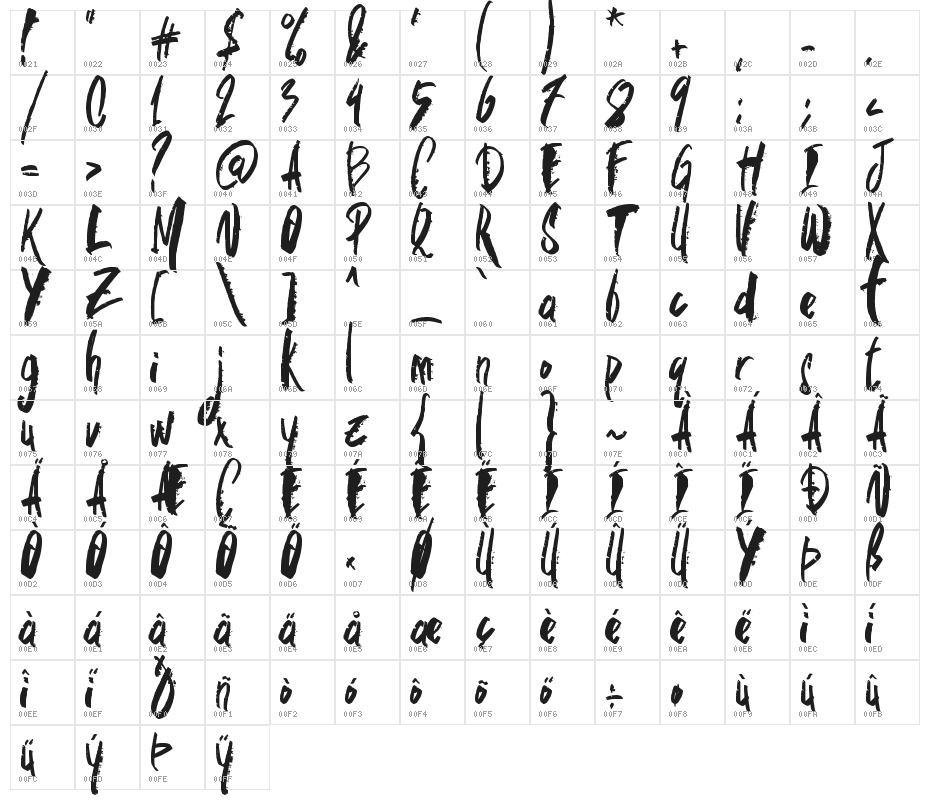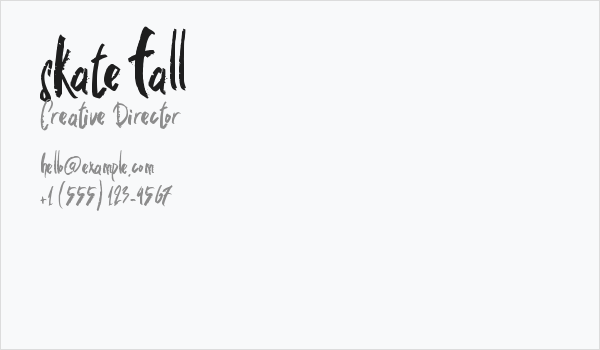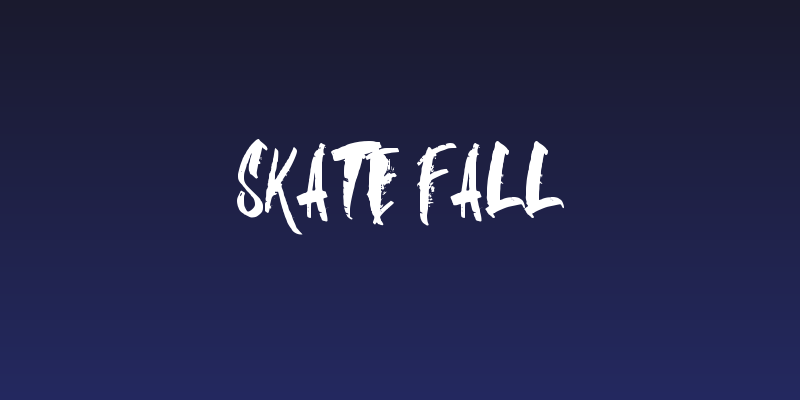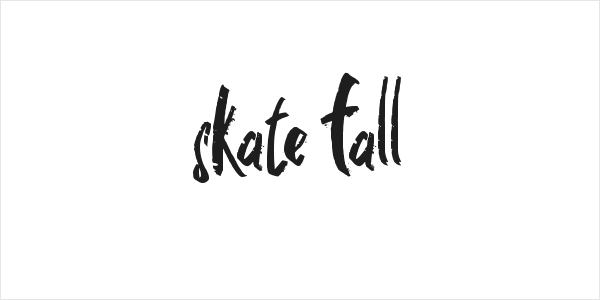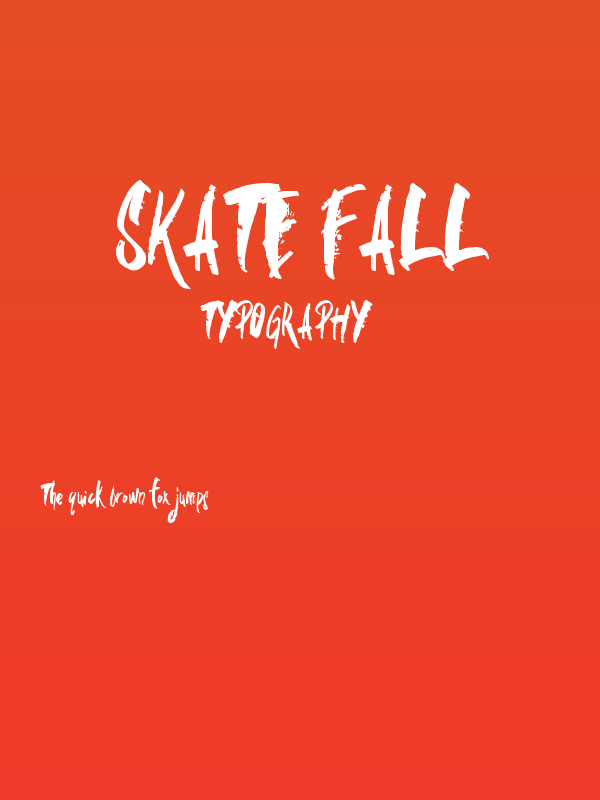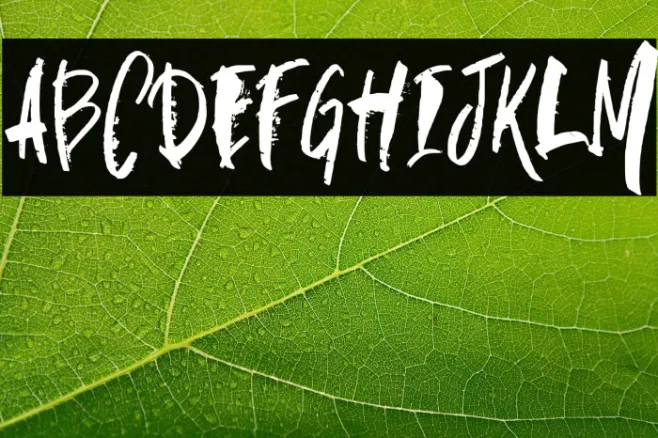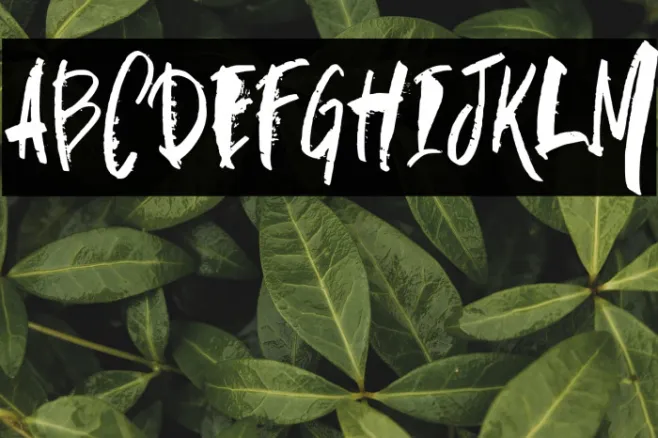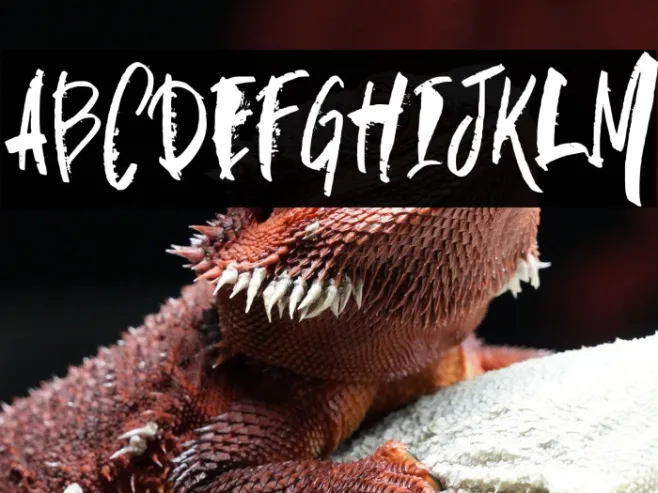
skate fall Font
skate fall Description
This font exudes a raw, energetic vibe with its bold, brush-stroke style. The letters are irregular and dynamic, giving a sense of movement and spontaneity. The uppercase and lowercase characters maintain a consistent aesthetic, characterized by their jagged edges and varying thickness. Numbers and special characters follow the same expressive style, making them stand out with a rebellious flair. This font is perfect for projects that require a bold statement, capturing attention with its unique and artistic design.
| Overall Style | Modern, Urban |
| Proposed Projects | Ideal for skateboarding brands, music album covers, graffiti art, and urban-themed posters. |